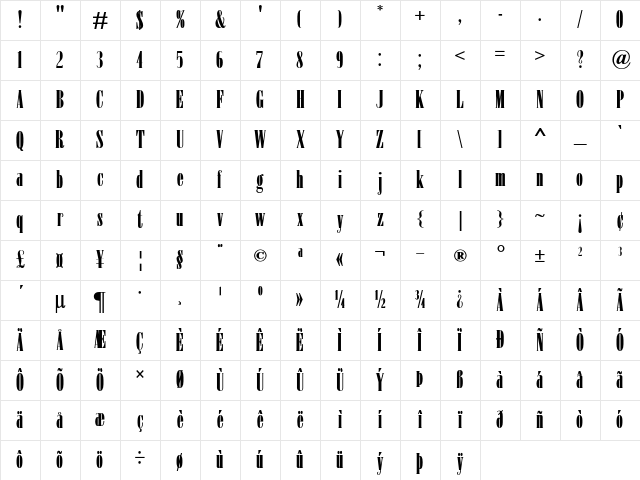
Taranteeno Bold Free Font
Taranteeno Bold
Taranteeno Family
Design Context for Taranteeno
Taranteeno is a composed and adaptable typeface that performs quietly and consistently across a wide range of design contexts. Its bold stroke weight gives it real presence on the page.